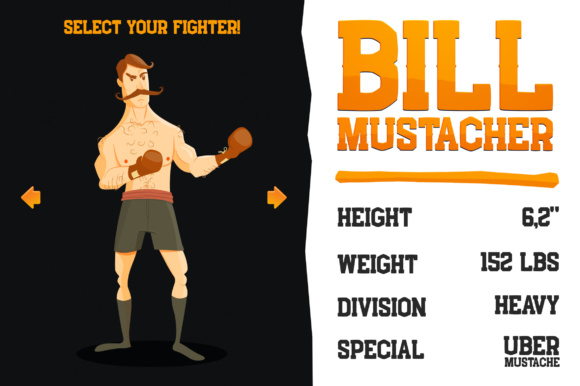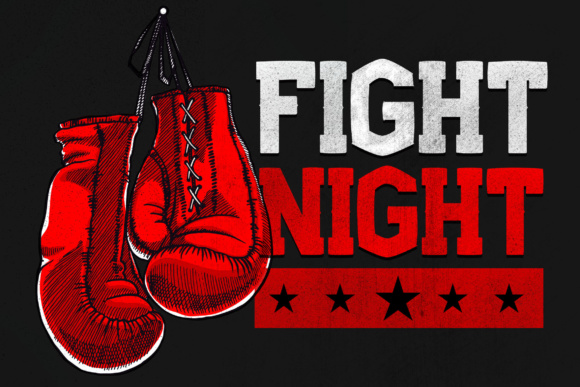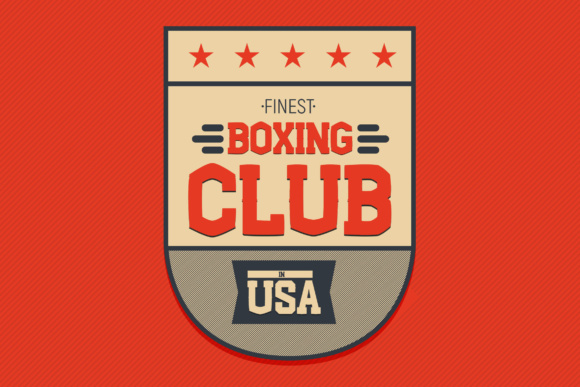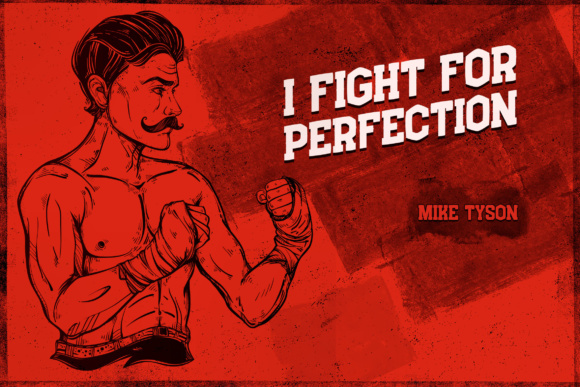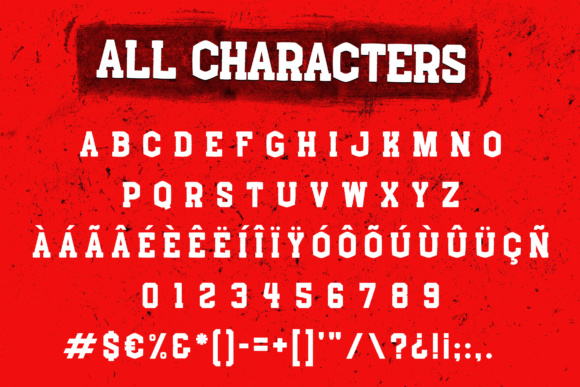
The Knockout Punch: Discovering the Boxing Font
I’ll never forget the time I was working on a project for a client who wanted a bold, eye-catching font to match their energetic brand. I scoured the internet for the perfect font, but nothing seemed quite right. That was until I stumbled upon the Boxing Font, a fun slab serif font that’s ready to rumble! 💪
Inspired by the sport of boxing itself, Boxing Font has a bold look that will impact your designs beautifully. With its sturdy serifs and confident demeanor, this font is sure to knock out the competition. In this article, we’ll take a closer look at the Boxing Font, its features, and how to use it to take your designs to the next level.
So, what do I love about the Boxing Font? Here are a few things that make it a standout:
- ✨ Bold and eye-catching: The Boxing Font is perfect for making a statement. Its bold, slab serif design demands attention and adds a touch of energy to any design.
- ✅ Highly legible: Despite its boldness, the Boxing Font is surprisingly easy to read, making it perfect for body text or headings.
- 💼 Versatile: The Boxing Font is suitable for a wide range of design projects, from posters and flyers to social media graphics and branding materials.
Of course, no font is perfect, and the Boxing Font has a few small quirks:
- 🤔 Limited font styles: Currently, the Boxing Font only comes in one style, which may limit its versatility for some designers.
- ⚠️ Not suitable for body text: While the Boxing Font is legible, it’s still a bold font that’s best used for headings or titles. For body text, you may want to choose a more traditional font.
The Designer Inspiration Behind the Boxing Font
The Boxing Font was inspired by the sport of boxing itself. The designer, who wishes to remain anonymous, was a fan of the sport and wanted to create a font that captured its energy and boldness. With its sturdy serifs and confident demeanor, the Boxing Font is sure to knock out the competition.
| Font Name | Boxing Font |
| Author | Corgi Astronaut |
| What is the Boxing Font? | The Boxing Font is a fun slab serif font inspired by the sport of boxing. |
| What can I use the Boxing Font for? | The Boxing Font is suitable for a wide range of design projects, from posters and flyers to social media graphics and branding materials. |
| Is the Boxing Font easy to read? | Yes, despite its boldness, the Boxing Font is surprisingly easy to read. |